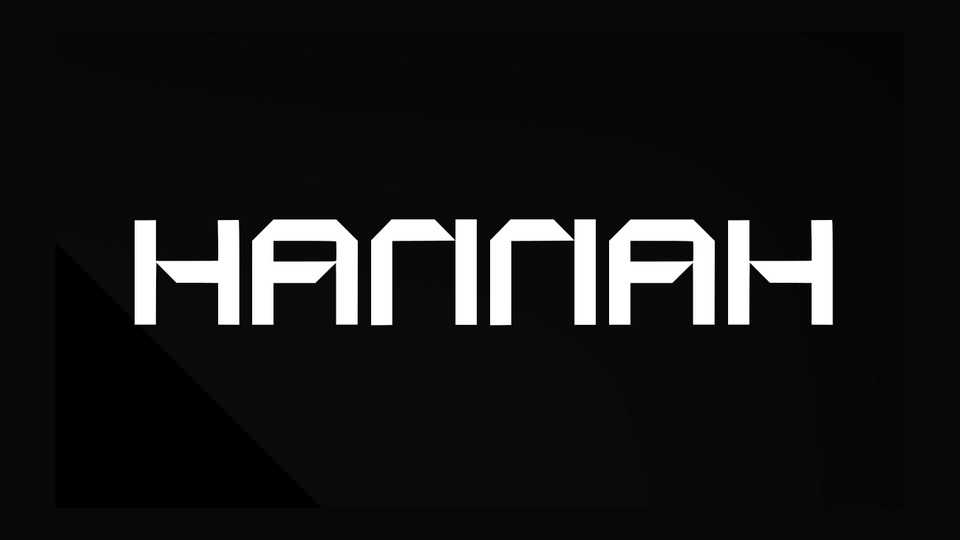
Download Hannah font, a bold geometric all caps display typeface with square forms and sharp details. Hannah perfectly fits for posters, headlines and creative graphics.
Designer: Blade Graphics